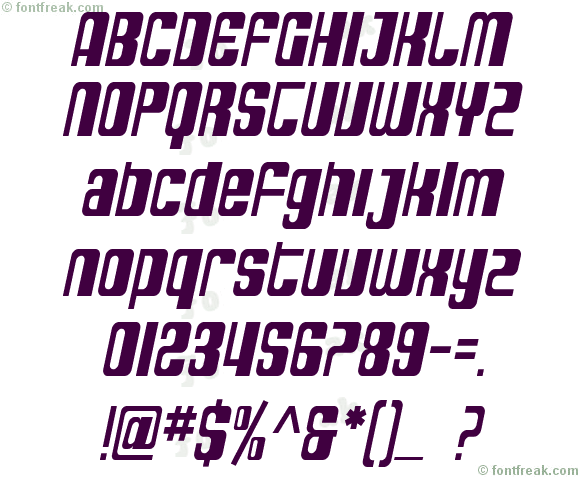
About Deco Techno
Deco Techno by Shyfonts Type Foundry is a striking display font that expertly marries the elegance of Art Deco design with a modern techno twist. This font is classified as decorative, showcasing a bold, condensed style that captures attention with its unique visual appeal. The strokes are thick and unapologetic, creating a sense of strength and presence, while the oblique design adds a dynamic flair, making it perfect for various creative projects. The shading detail enhances its dimensional quality, giving it depth and character that draws the eye.
Ideal for use in graphic design projects, Deco Techno is particularly suited for movie posters, where its dramatic flair can complement cinematic themes. It also works wonderfully for branding small tech startups, helping to convey innovation and modernity. Restaurant menus can benefit from its distinctive style, adding a touch of sophistication that sets the dining experience apart. Additionally, this font can enhance promotional materials for events, especially those with a retro or futuristic theme, making it versatile for content creators looking to make a lasting impression.
What sets Deco Techno apart is its perfect blend of vintage elegance and contemporary edge. It invites users to explore creative possibilities while offering a distinctive voice to any project. With Deco Techno font free download available, anyone can now elevate their designs with this exceptional typeface, making it a must-have for those seeking to make a bold statement.